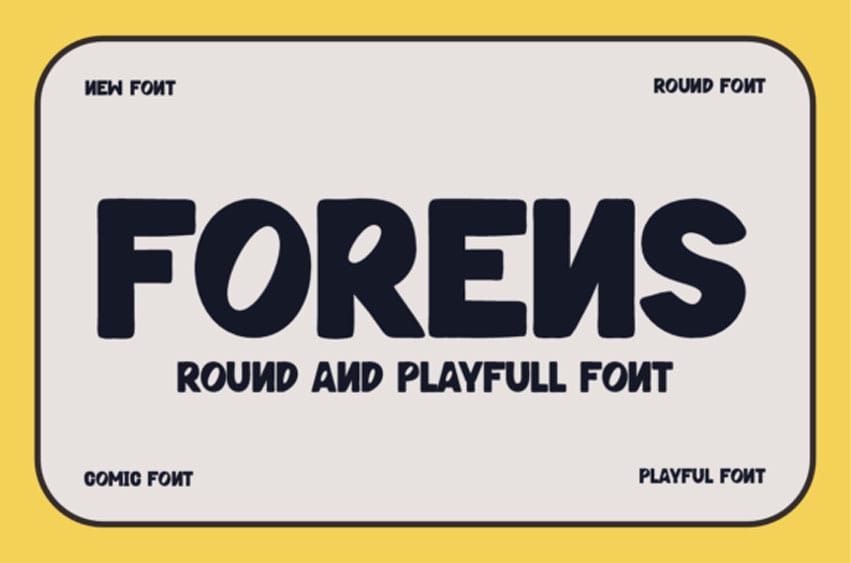
Forens Font is a bold, rounded display font bursting with personality. Designed for playful, comic, and kids-themed projects, it features chunky letterforms and soft curves that evoke joy and friendliness. Perfect for headlines, posters, educational materials, and branding,
Forens typeface brings a warm and whimsical touch to any design. Its casual style ensures readability while maintaining a unique, approachable charm that makes it stand out.